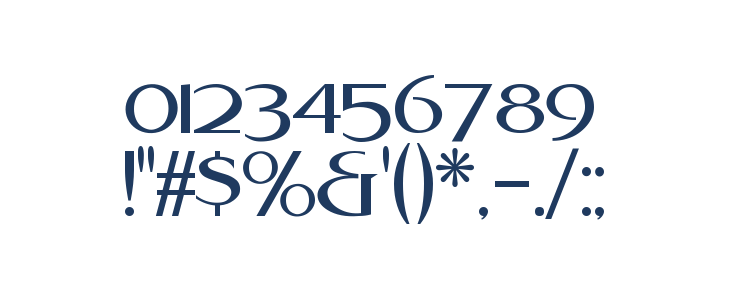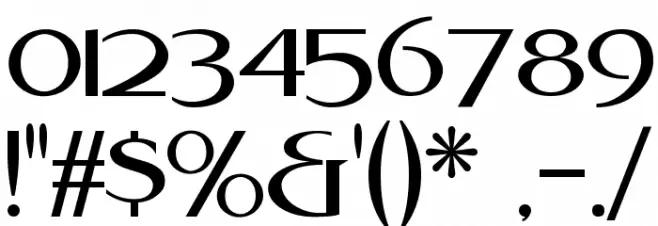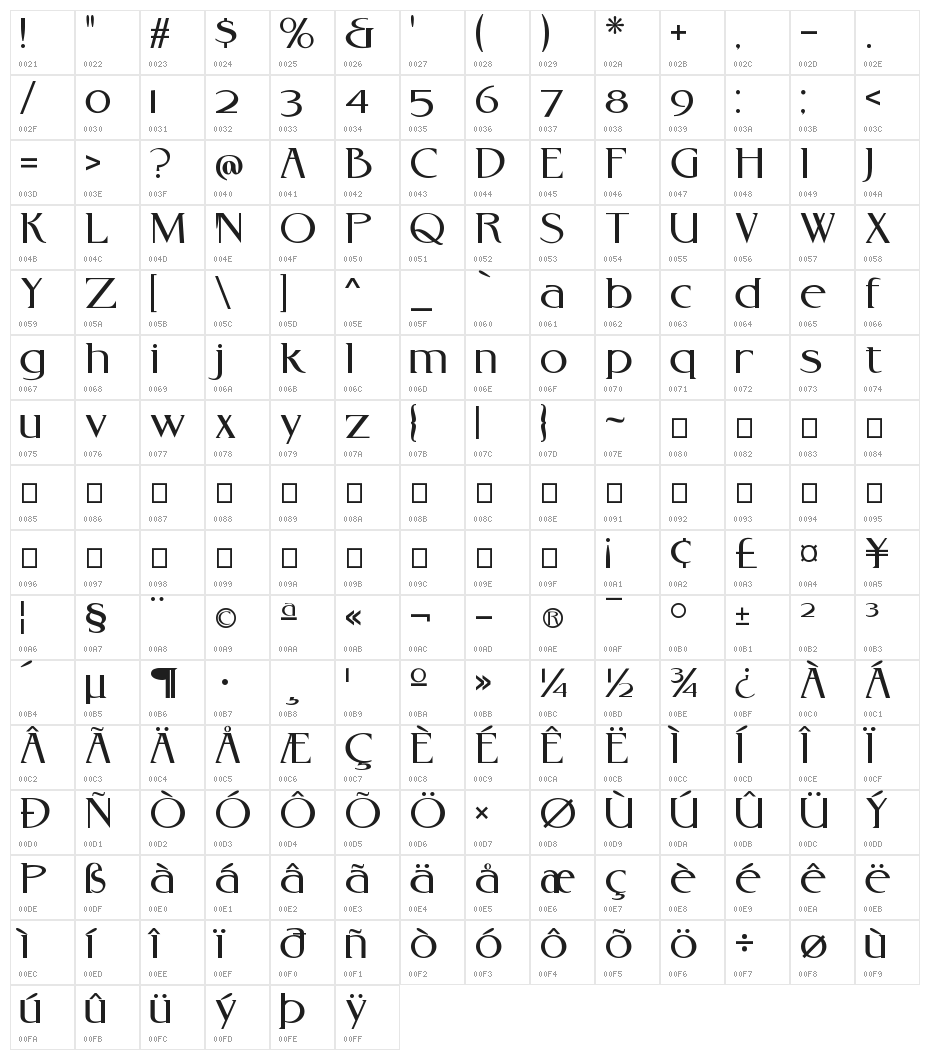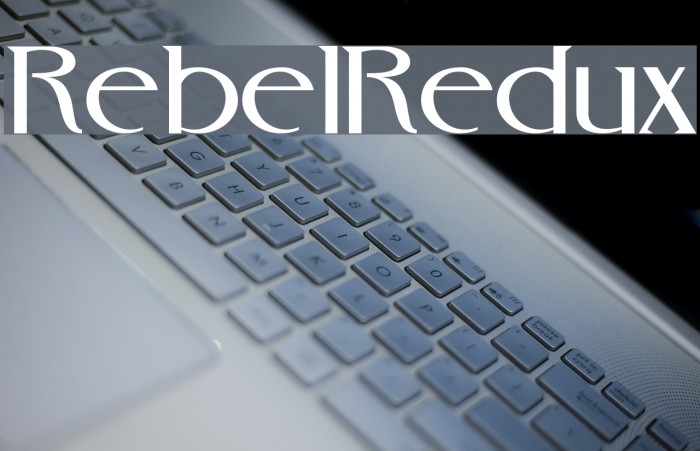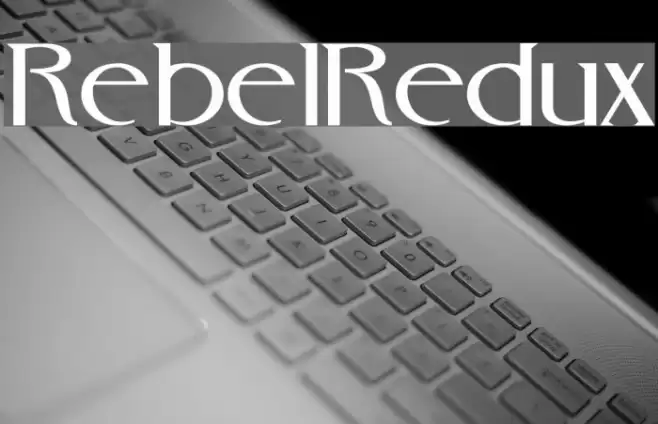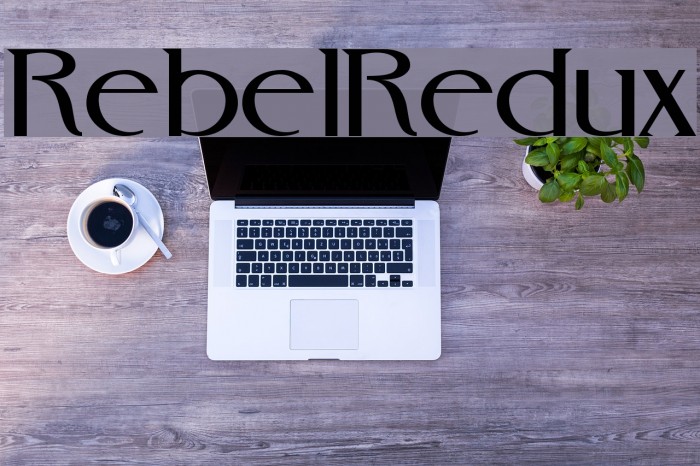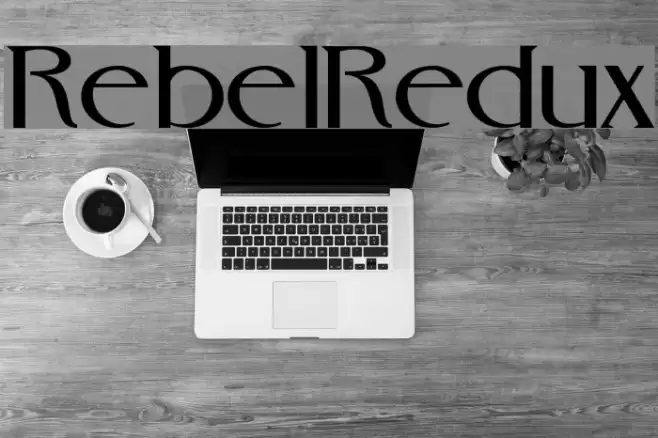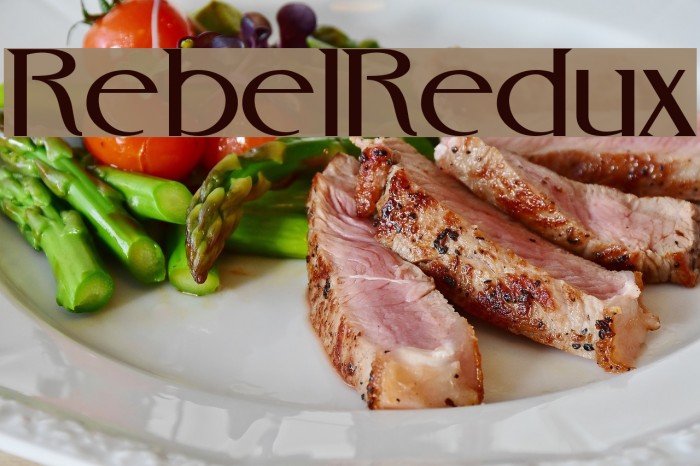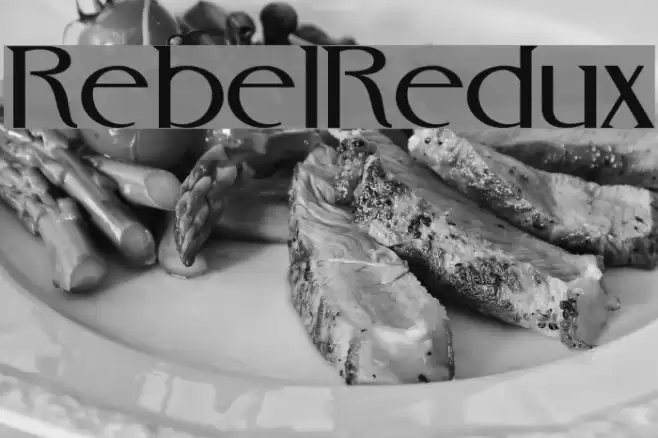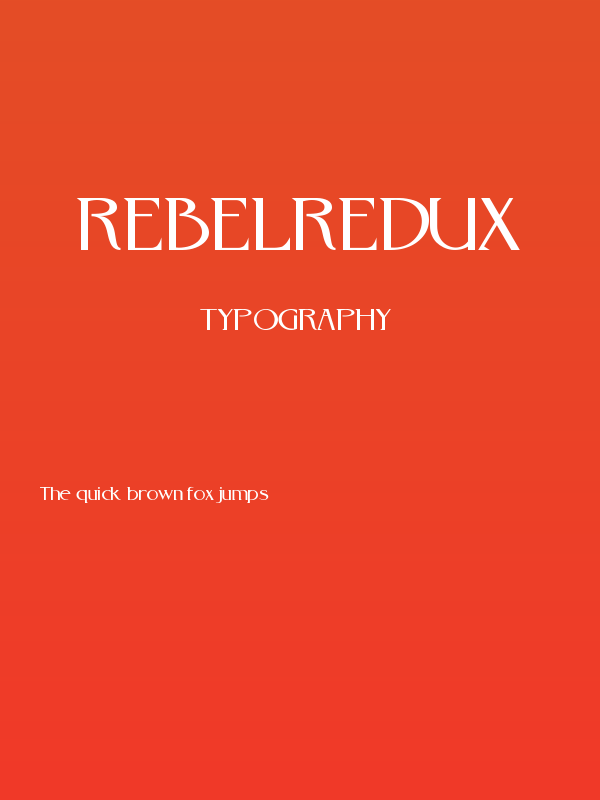
RebelRedux Font
RebelRedux Description
This font exhibits a modern and artistic flair with its unique blend of sharp angles and smooth curves. The uppercase letters are characterized by their tall, elegant forms, with some letters featuring distinctive cuts and slashes that add a dynamic feel. The lowercase letters maintain a consistent style, offering a harmonious balance between readability and artistic expression. The numerals are bold and clear, ensuring easy legibility. Special characters are designed with the same attention to detail, making them stand out while remaining cohesive with the overall design. This typeface is perfect for projects that require a touch of sophistication and modernity.
| Proposed Projects | Ideal for branding, editorial design, and advertising campaigns. |